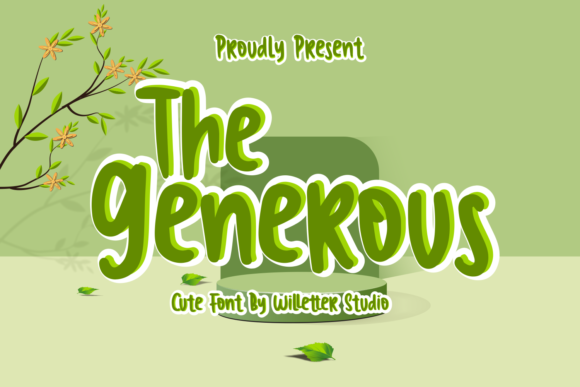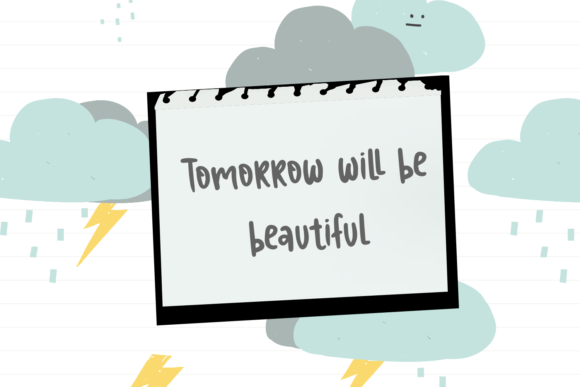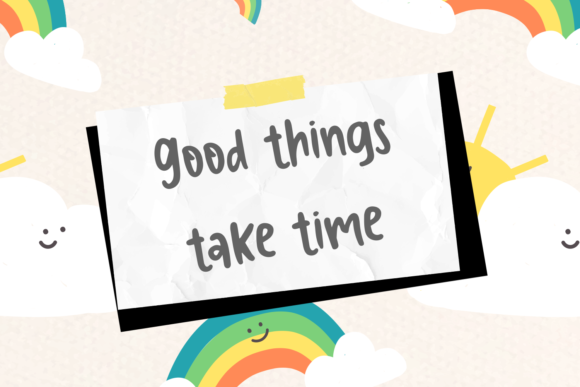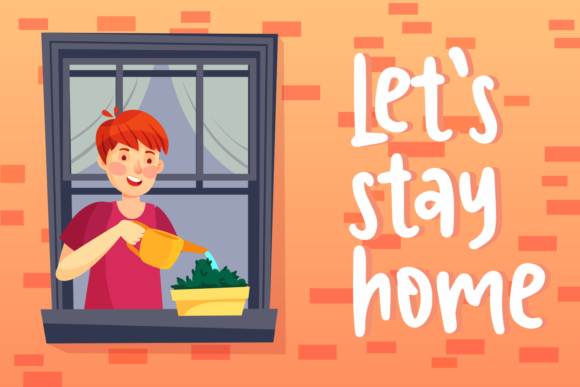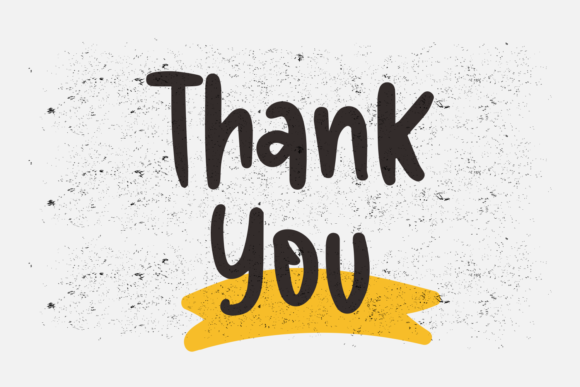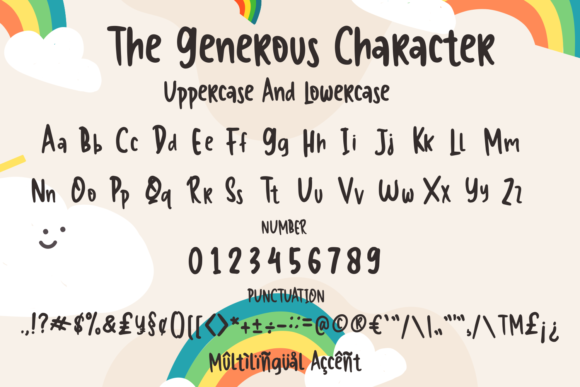
The Generous Font
About The Generous Font
The Generous is a fun and informal handwritten font. Its natural and unique style makes it incredibly fitting to a large pool of designs. The only limit is your imagination!